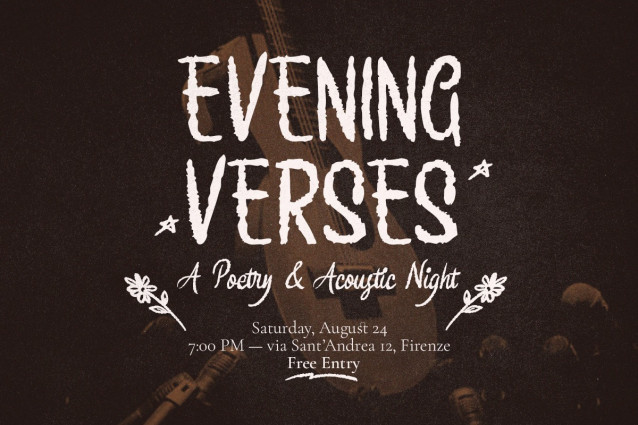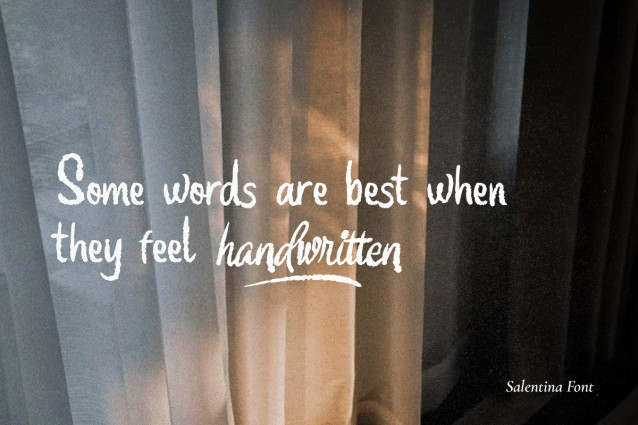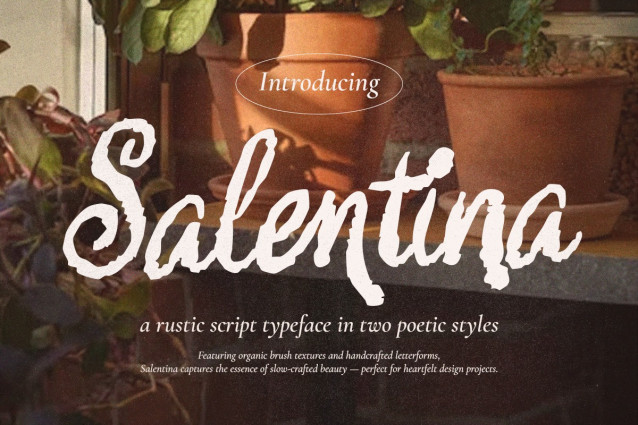
Salentina Italic Script Font
Salentina Italic Script Font is a rustic script font with a warm, handcrafted feel. It comes in two styles — Regular and Slanted — perfect for adding a poetic, natural touch to your designs.
Inspired by slow living and organic textures, Salentina is great for logos, packaging, quotes, journals, and branding. Each letter feels like it was written with care.